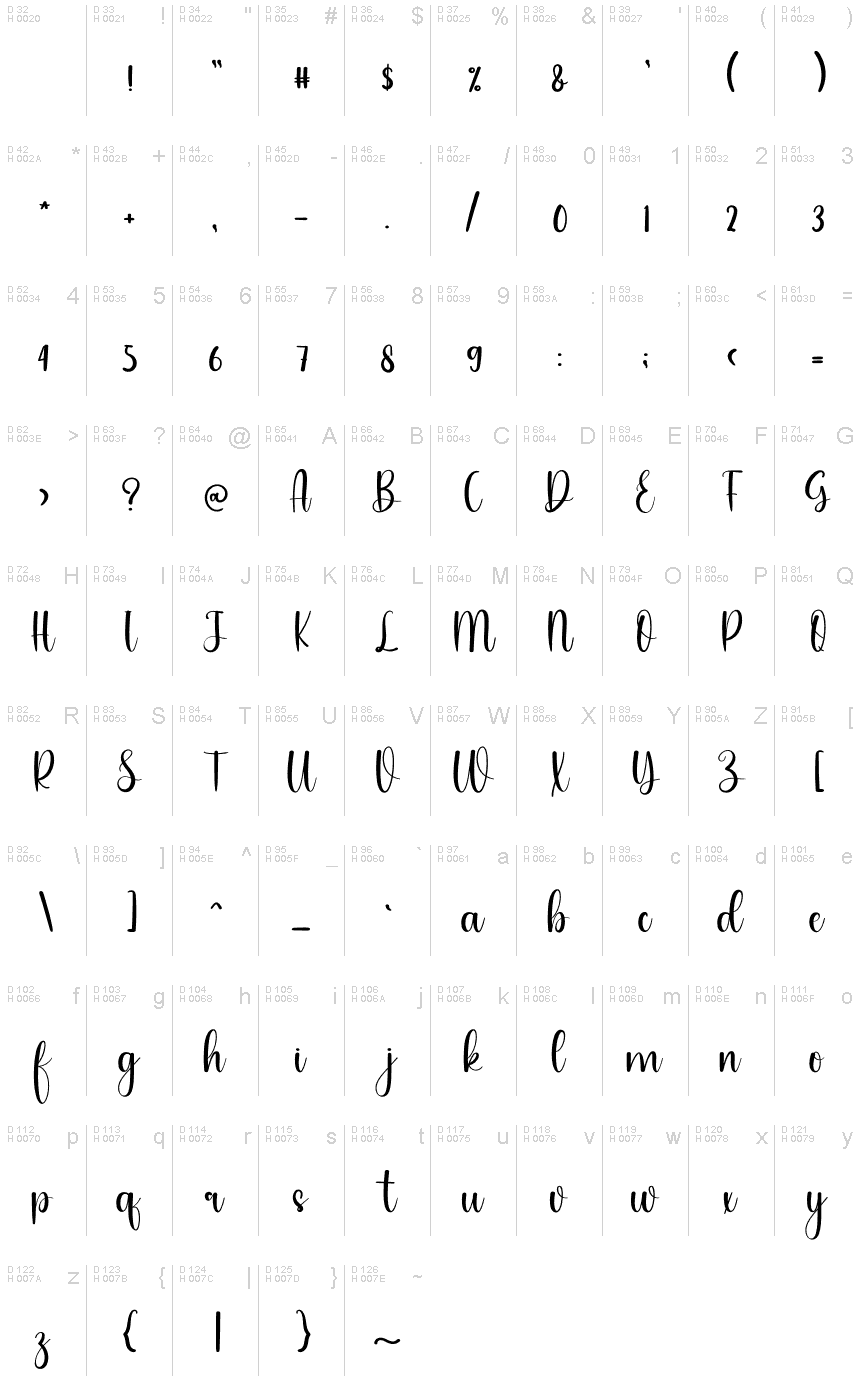
Hello Smile
Hello Smile, designed by PiPi Creative, breathes life into the written word with its charming handwritten style. Its semi-condensed width offers a cozy, personal touch that mimics the intimacy of a handwritten note. The fluidity of each letter in Hello Smile exudes a casual elegance, making it an excellent choice for designs that require a blend of sophistication and whimsy.
With its friendly curves and inviting character, Hello Smile lends itself beautifully to creative projects such as personalized stationery, inspirational quotes, or branding for boutique businesses seeking to convey warmth and approachability. Whether it's gracing the pages of a children's book or adorning wedding invitations, this font's versatile aesthetic appeal is sure to capture hearts and evoke smiles.